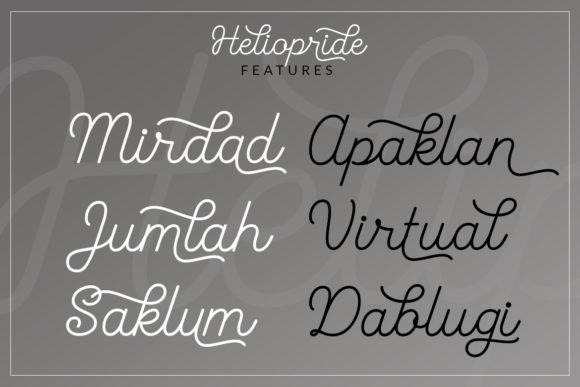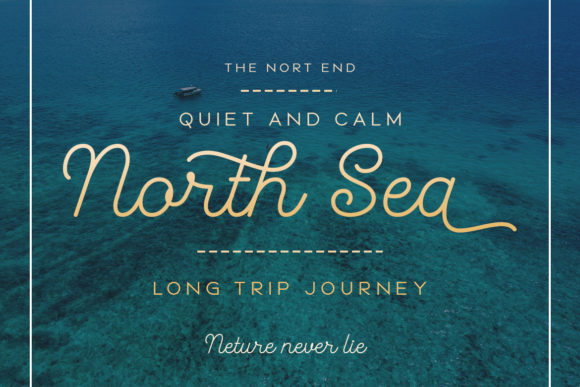
Heliopride Font
db-ku.com - Script & Handwritten -- Heliopride is a thin and delicate lettered script font, featuring a vintage style. It is PUA encoded which means you can access all of the glyphs and swashes with ease! Use it for projects that need lovely, romantic typography!